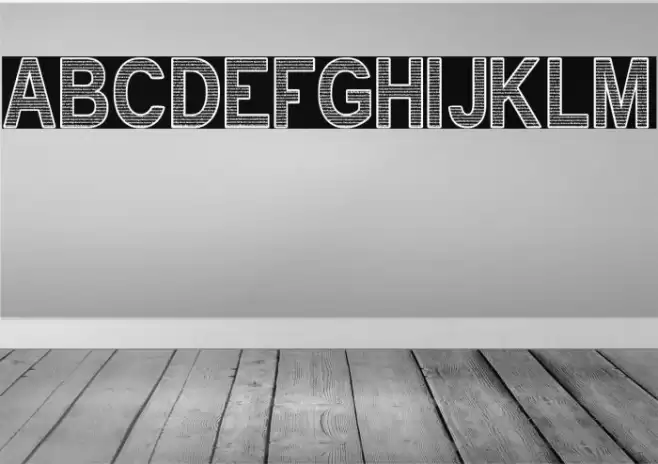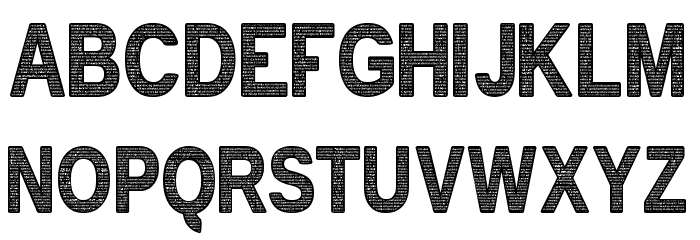
text INSIDE tfb Font
text INSIDE tfb Description
This font features a bold, uppercase style with a unique textured pattern inside each letter. The texture resembles a series of horizontal lines or a woven fabric, giving the font a distinctive and eye-catching appearance. The characters are evenly spaced, maintaining a consistent width throughout. The overall design is modern and decorative, making it suitable for projects that require a strong visual impact. The font's boldness and texture make it ideal for headlines, posters, and branding materials where a striking and memorable look is desired.
A bold, textured uppercase font with a modern and decorative style from Futuristic fonts.
- Proposed Projects: Ideal for headlines, posters, branding, and any project needing a strong visual impact.
- Overall Style: Modern, Decorative
- Use Case: Headlines, Posters, Branding